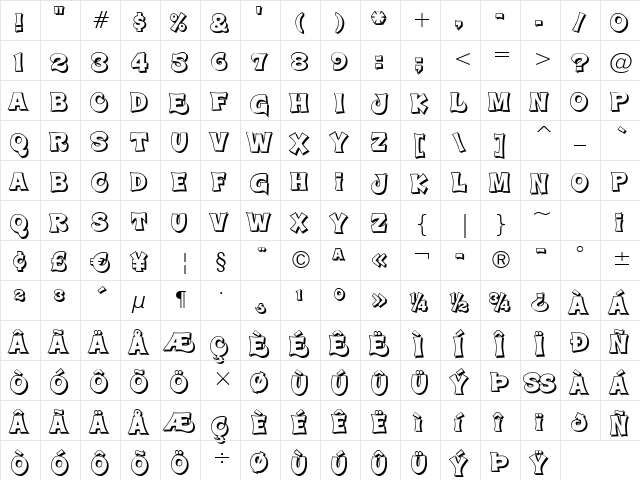
Super Delicious BTN Shadow Regular
Design Context for Super Delicious BTN Shadow Typeface
Super Delicious BTN Shadow is built around its visual character rather than neutral utility — its distinctive forms are designed to make an impression at display sizes.
Font Pairing: Pair with a clean neutral sans-serif for body copy to let Super Delicious BTN Shadow's character lead without overwhelming the composition.
Pro Tip: Treat Super Delicious BTN Shadow as the centrepiece of your typographic hierarchy. One strong heading set in a decorative face can carry an entire layout.